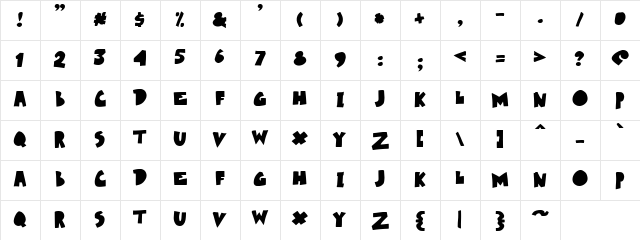
xotax Regular
Design Context for xotax Typeface
xotax is a composed and adaptable typeface that performs quietly and consistently across a wide range of design contexts.